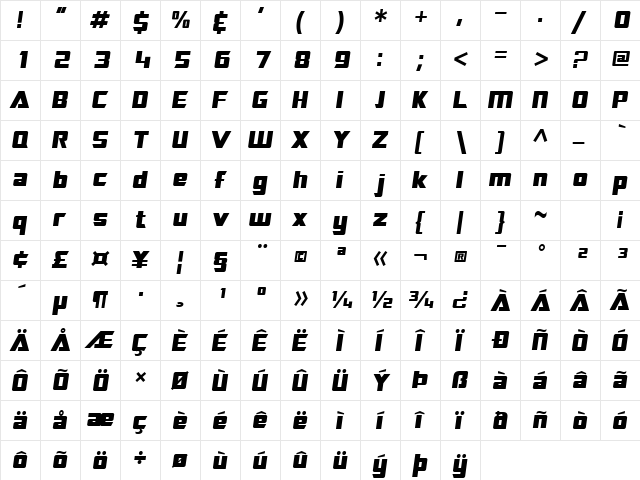
SF TransRobotics Extended Oblique
Design Context for SF TransRobotics Extended Typeface
SF TransRobotics Extended is a composed and adaptable typeface that performs quietly and consistently across a wide range of design contexts. The dynamic lean of this cut emphasises speed and emphasis in any layout.
Pro Tip: Try SF TransRobotics Extended for annotation and caption copy alongside an upright companion — the contrast in angle creates a dynamic but ordered typographic system.